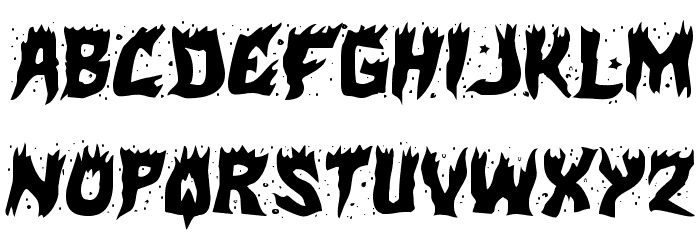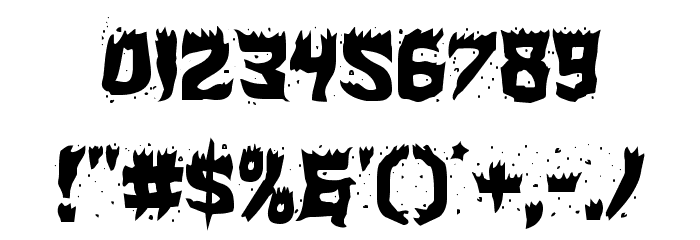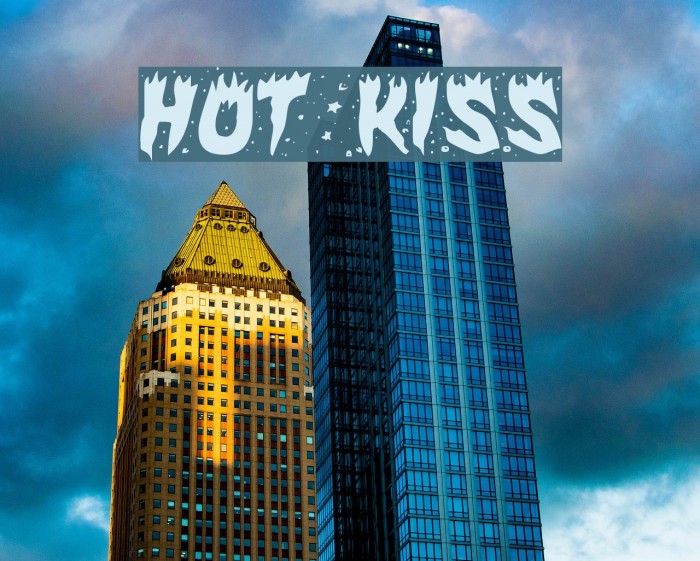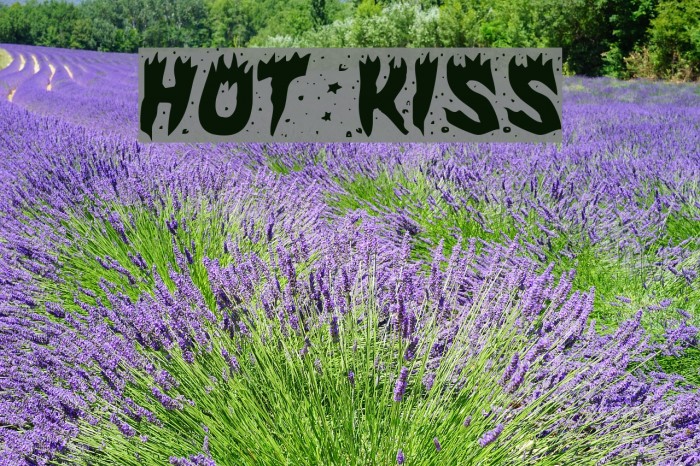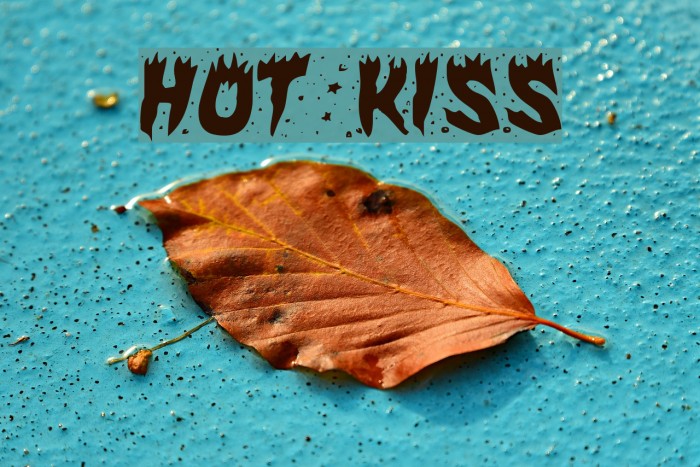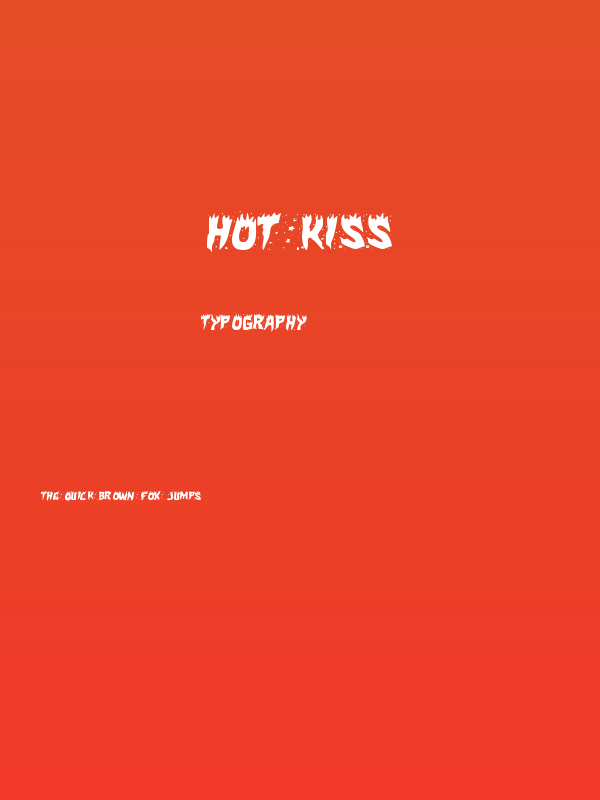
Hot Kiss Font
This font features a bold and dynamic style with jagged, flame-like edges that give it a fiery and intense appearance. The uppercase and lowercase letters maintain a consistent theme, with sharp, angular strokes that create a sense of movement and energy. The numbers and special characters are equally bold, ensuring a cohesive look across all text elements. The font's unique design makes it stand out, capturing attention with its dramatic flair. The overall aesthetic is both aggressive and artistic, making it suitable for projects that require a strong visual impact.
A bold, fiery font with jagged, flame-like edges and a dynamic, energetic style.
- Proposed Projects: Ideal for horror-themed posters, Halloween invitations, edgy branding, and music album covers.